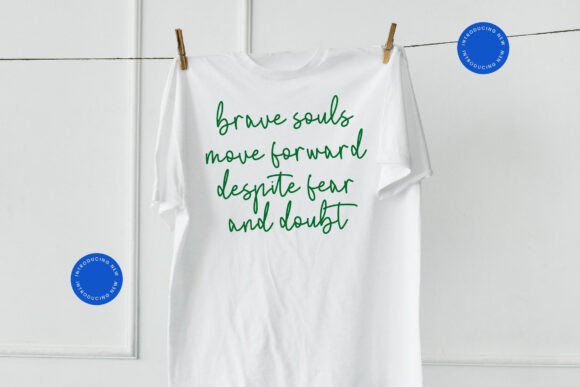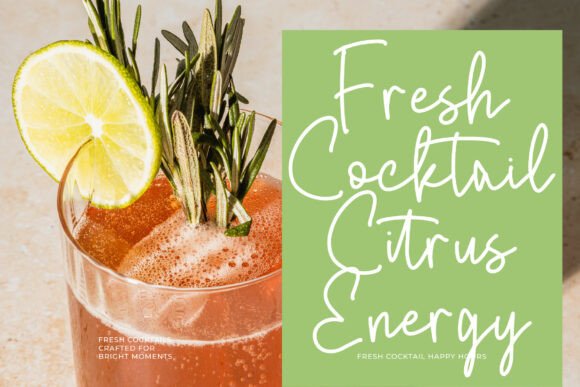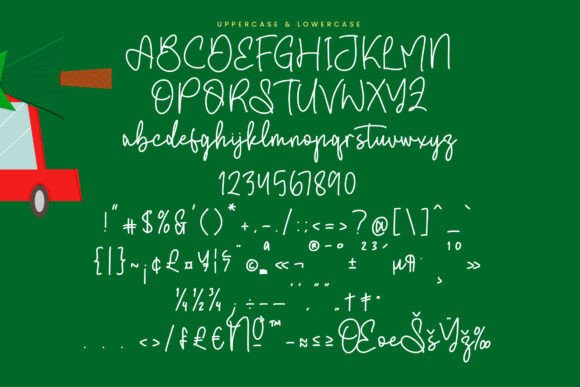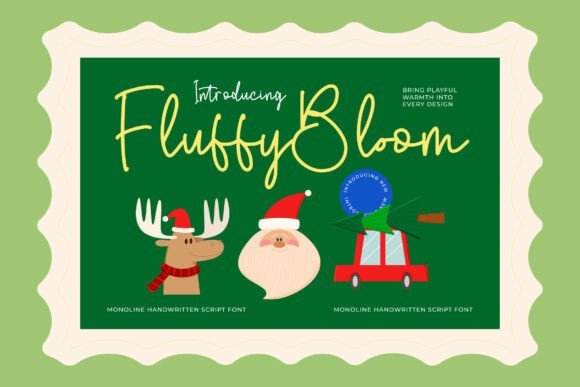
Introduction to Fluffy Bloom Font
Bring playful warmth into every design with Fluffy Bloom , a charming monoline handwritten script .
This font is defined by its soft, rounded strokes and a gentle, whimsical flow that feels as light as air Its friendly and inviting personality makes it perfect for seasonal holiday graphics, children’s book titles, nursery decor, and cozy home-brand identities.
Key Features of Fluffy Bloom Font
Why Choose Fluffy Bloom Font?
Fluffy Bloom Font offers exceptional quality and versatility, making it a valuable addition to your design toolkit. Whether you’re creating for personal projects or commercial use, Fluffy Bloom Font delivers professional results.